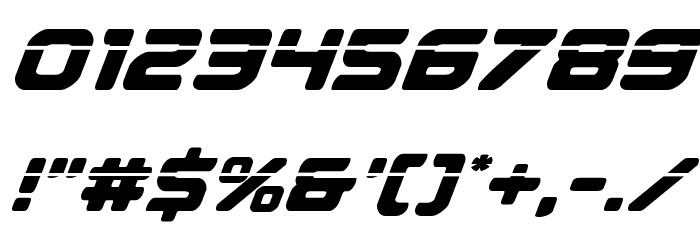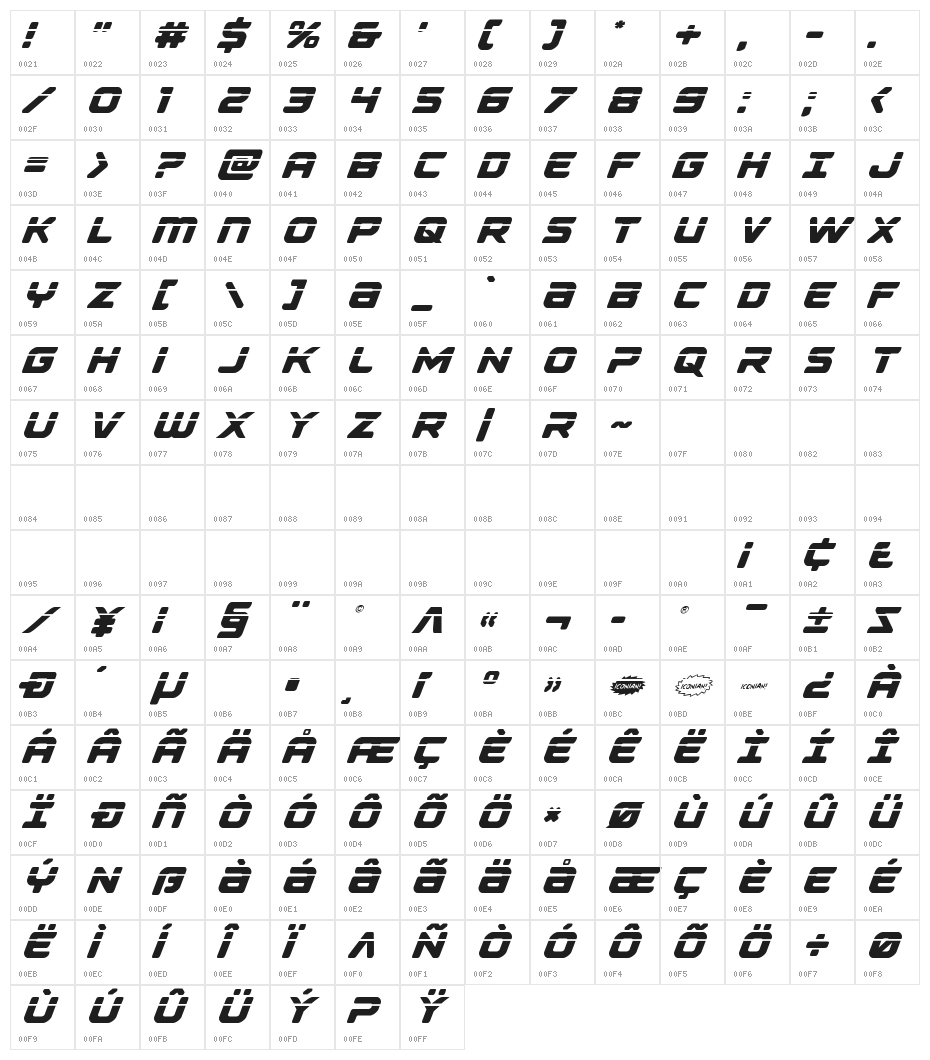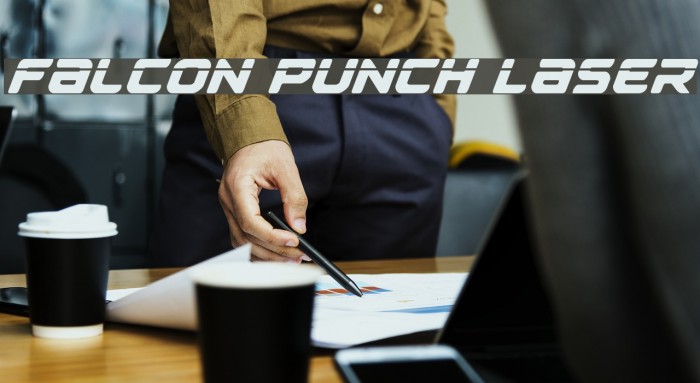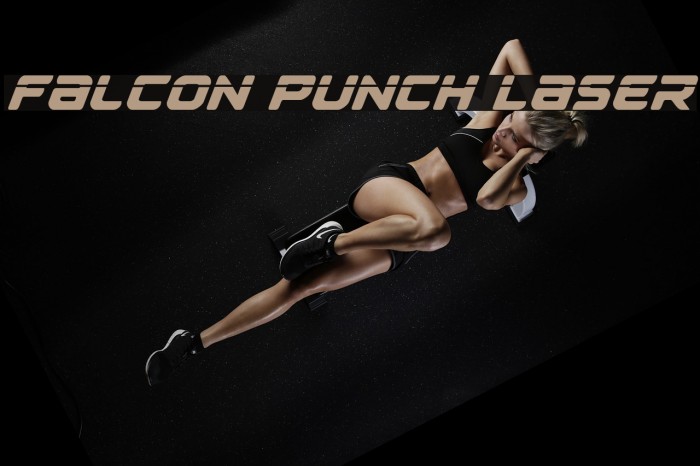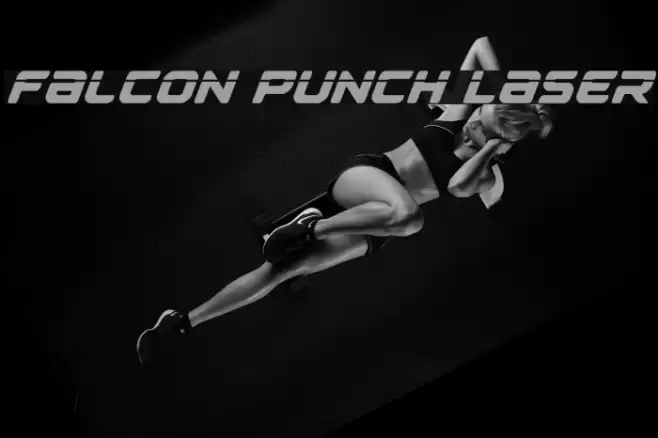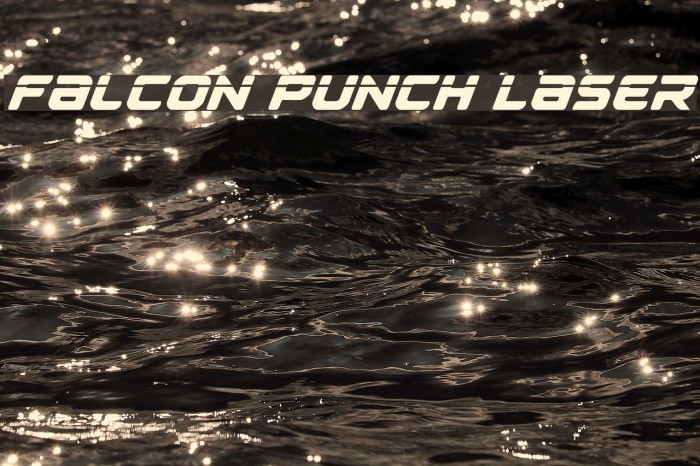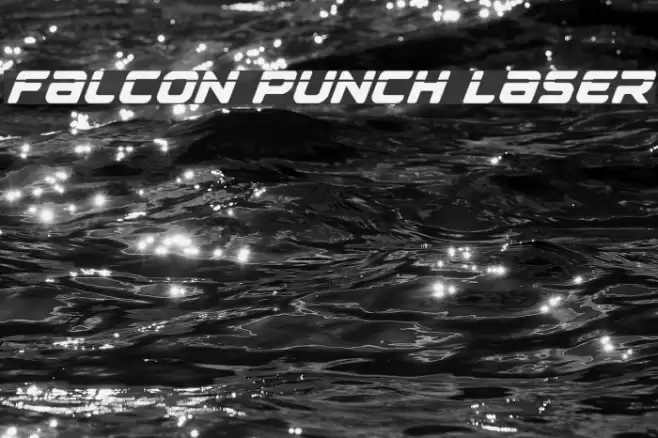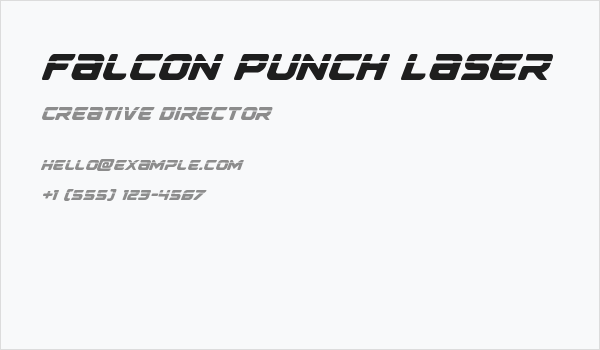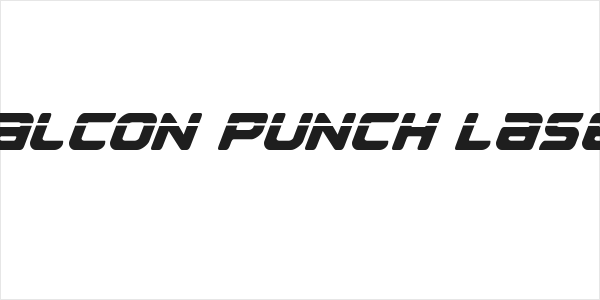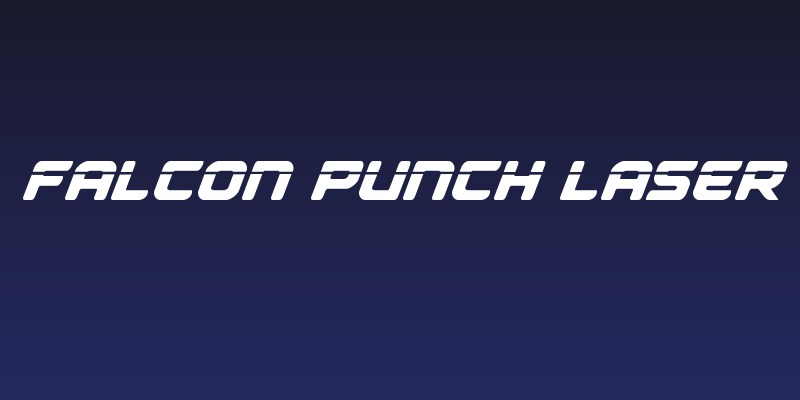
Falcon Punch Laser Font
Falcon Punch Laser Description
This font features a bold, futuristic design with a strong emphasis on angular shapes and sharp edges. The characters are slightly slanted, giving a sense of motion and speed. The overall appearance is sleek and modern, with a consistent stroke width that maintains a uniform look across all characters. The uppercase and lowercase letters are distinct, with a geometric style that enhances readability. The numerals and special characters follow the same design principles, ensuring cohesion throughout the font set. This font is ideal for projects that require a dynamic and contemporary aesthetic.
Proposed ProjectsIdeal for technology branding, video game titles, sci-fi movie posters, and modern advertising campaigns.